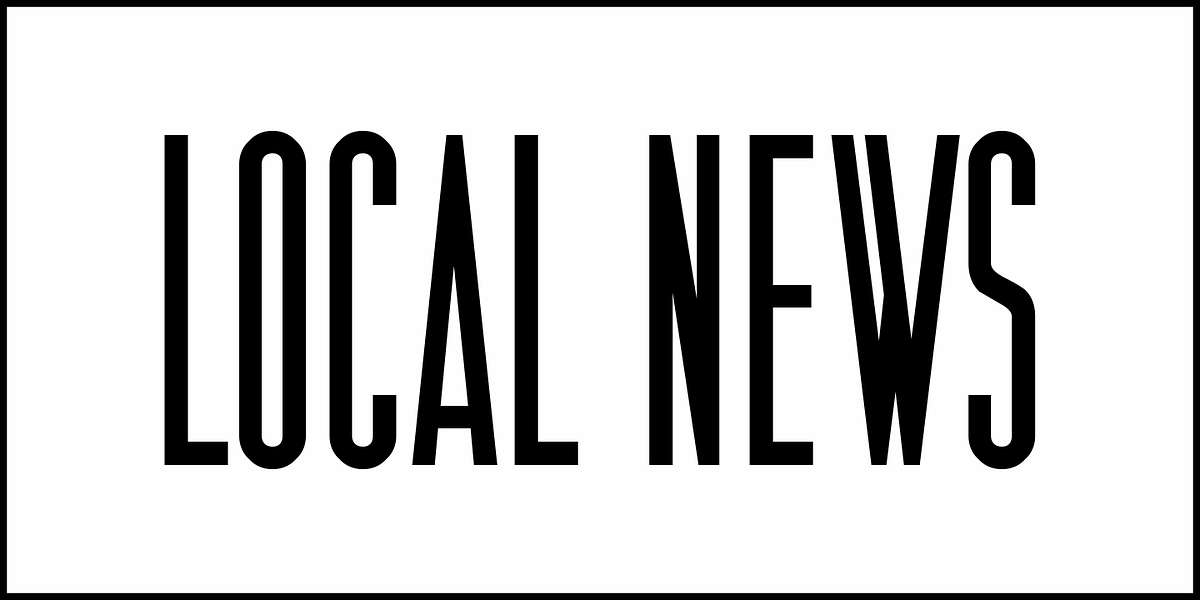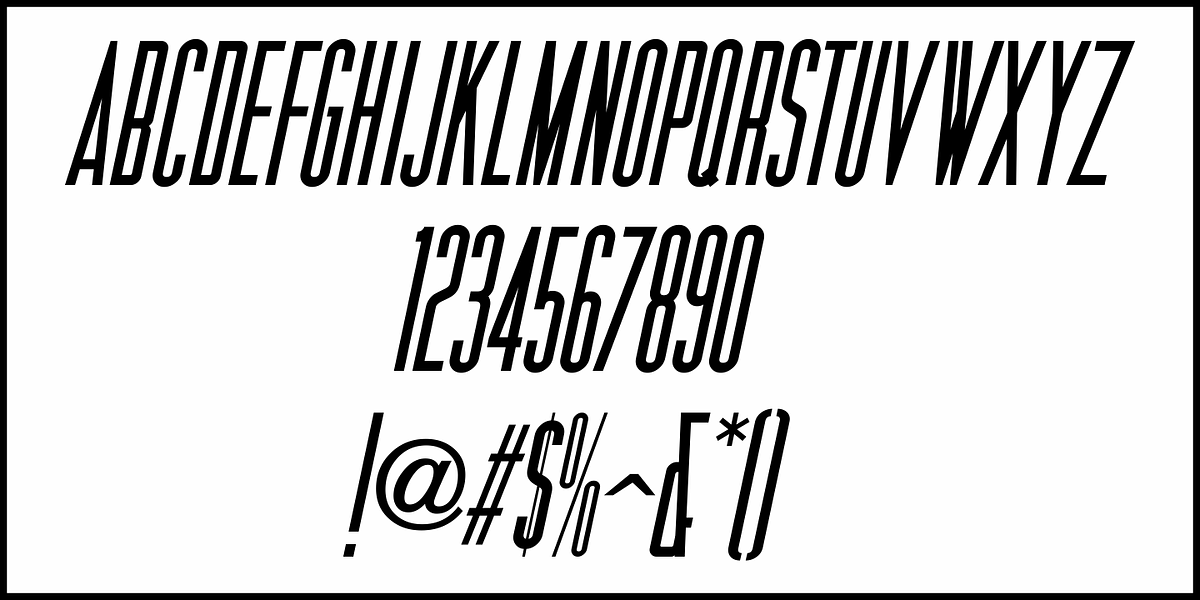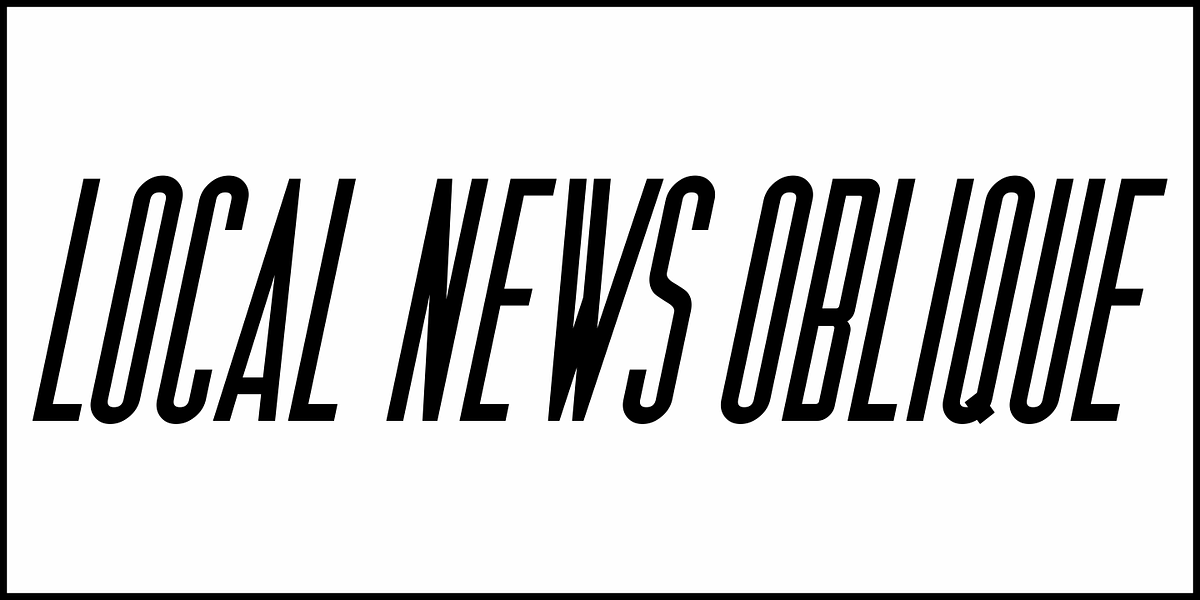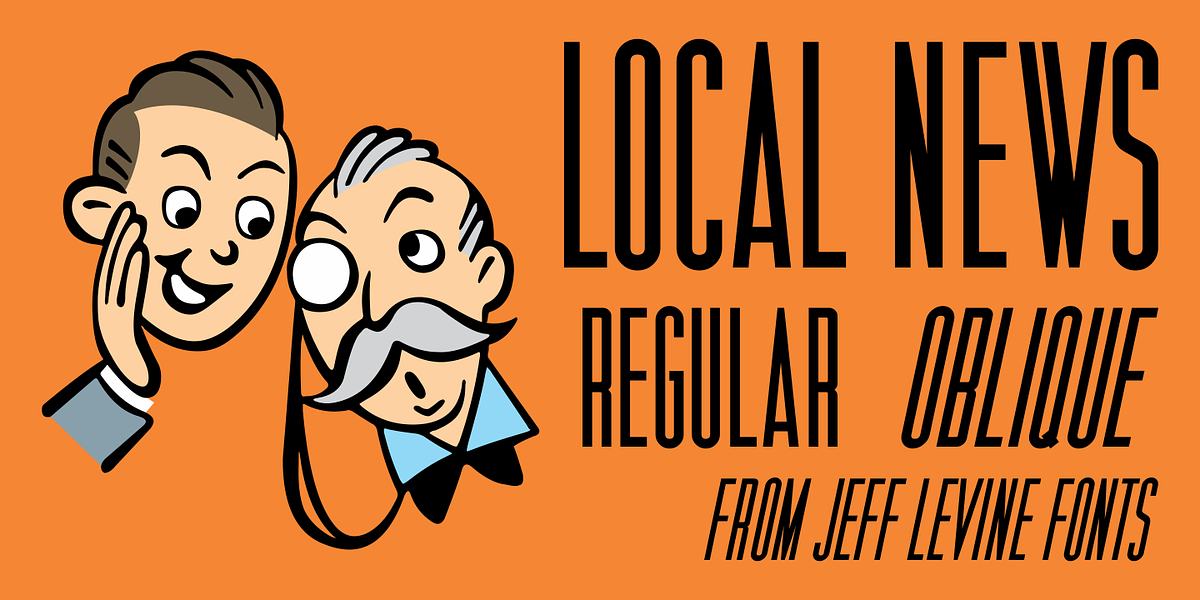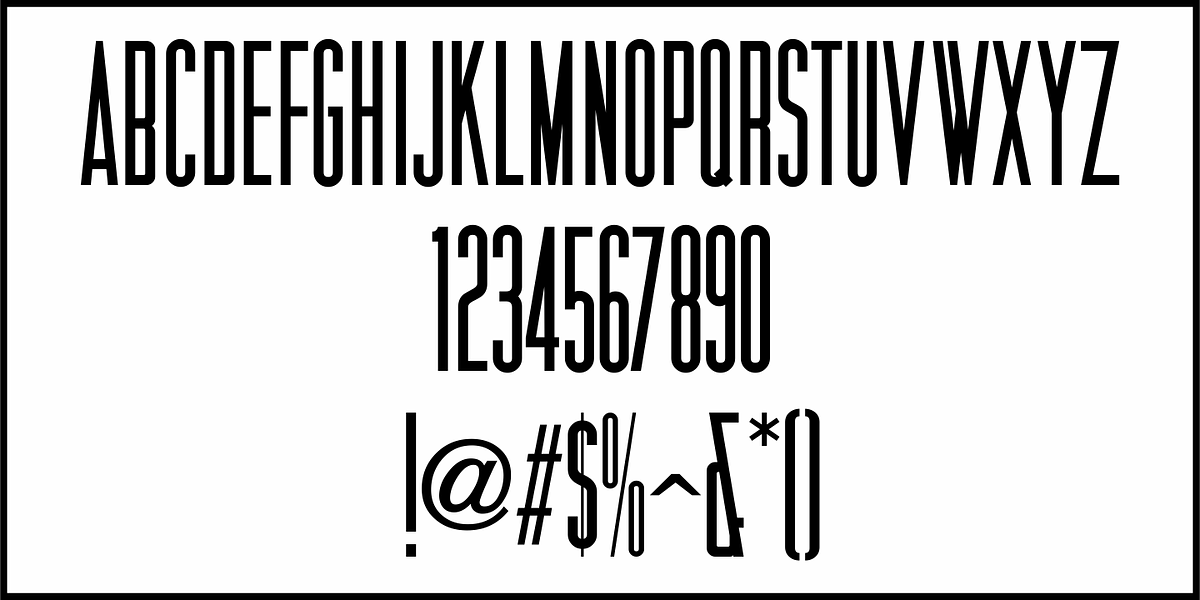
Local News JNL
The hand lettered title for the 1954 film “Power of the Press” was done in a condensed sans serif type style that is now available digitally in both regular and oblique versions as Local News JNL.